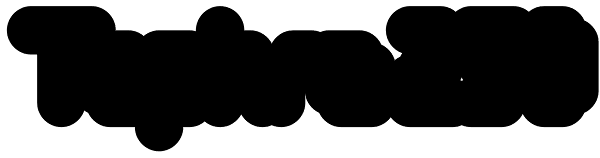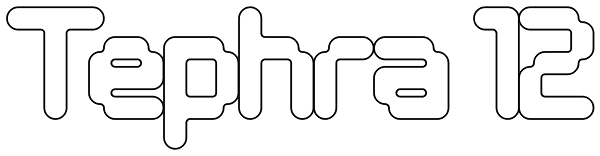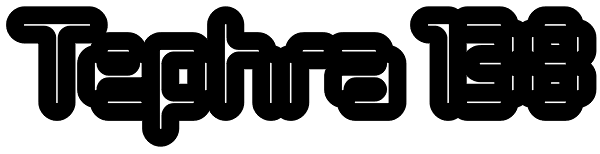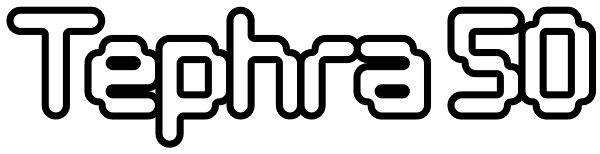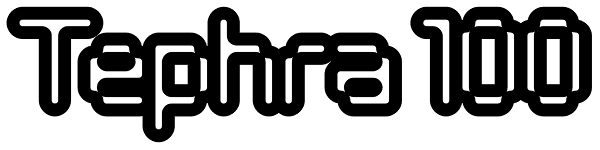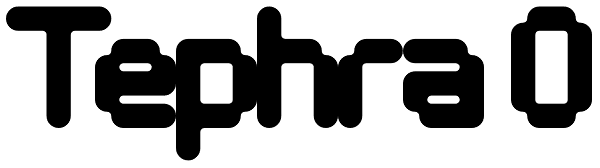
Tephra
Neo-modernism is the background for Tephra. The font is firmly intended for use in titling and display environments, yet at smaller sizes it creates tantalizing patterns: typography becomes image. The grid dominates the Tephra font family - there...